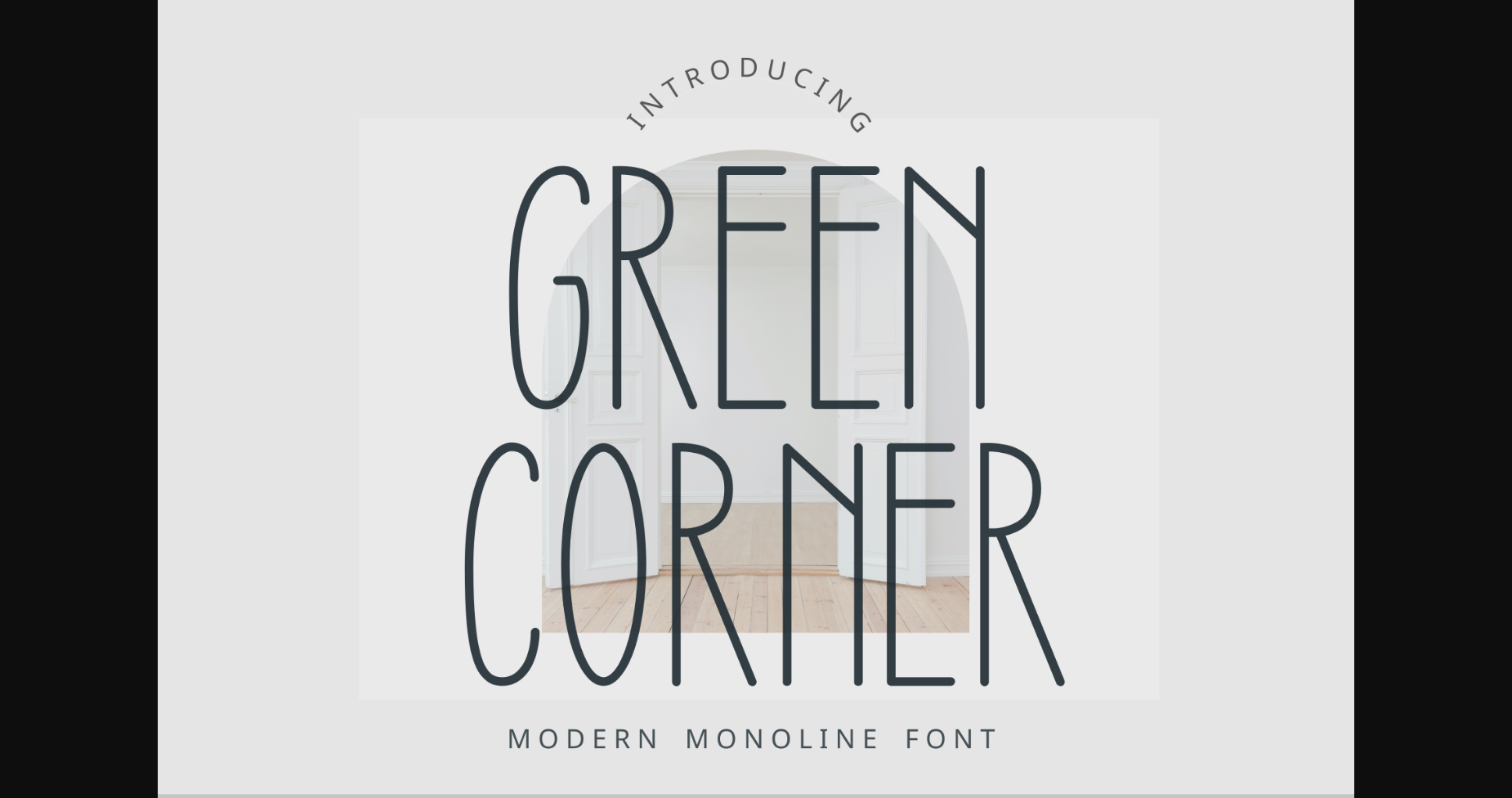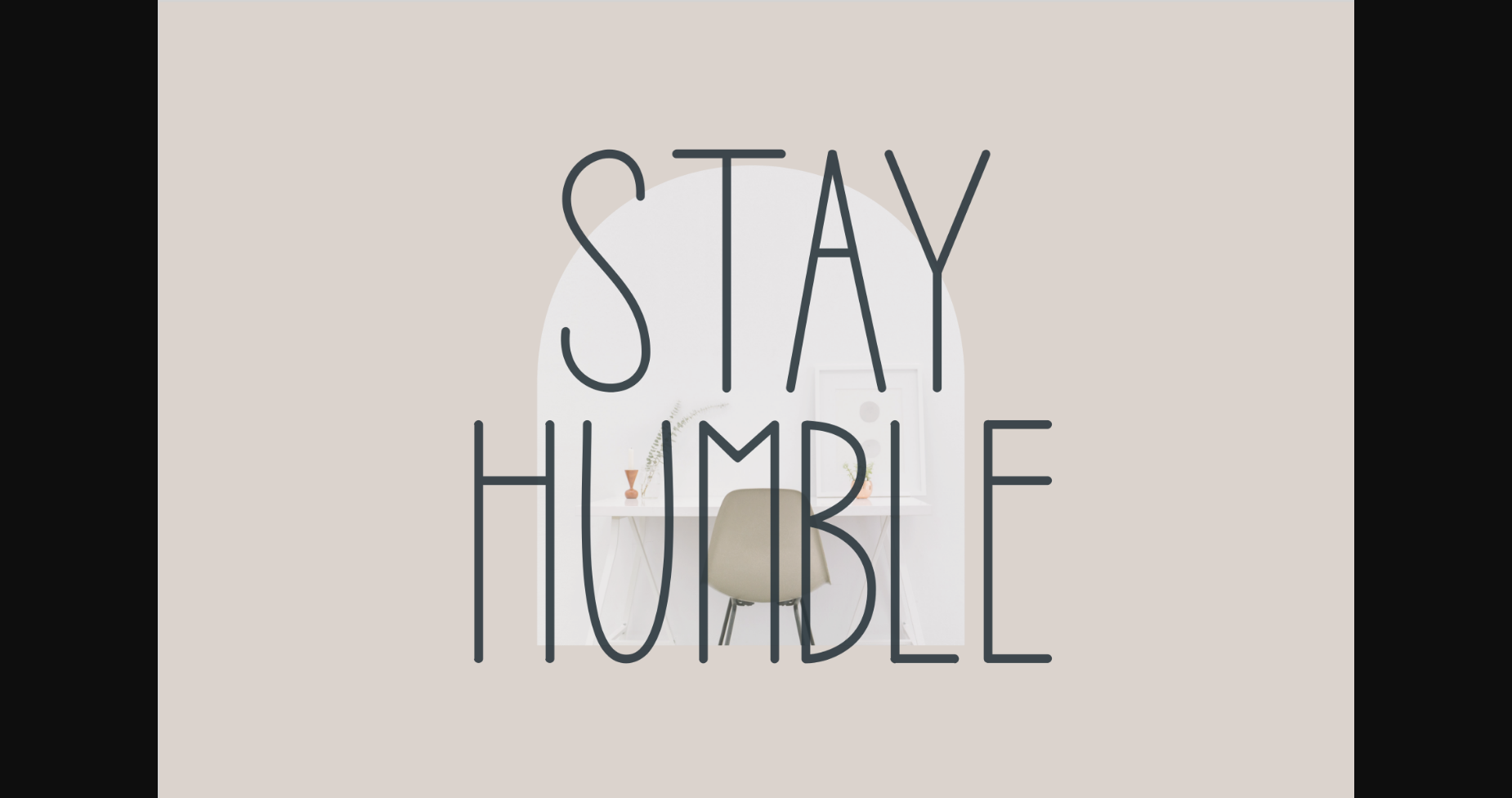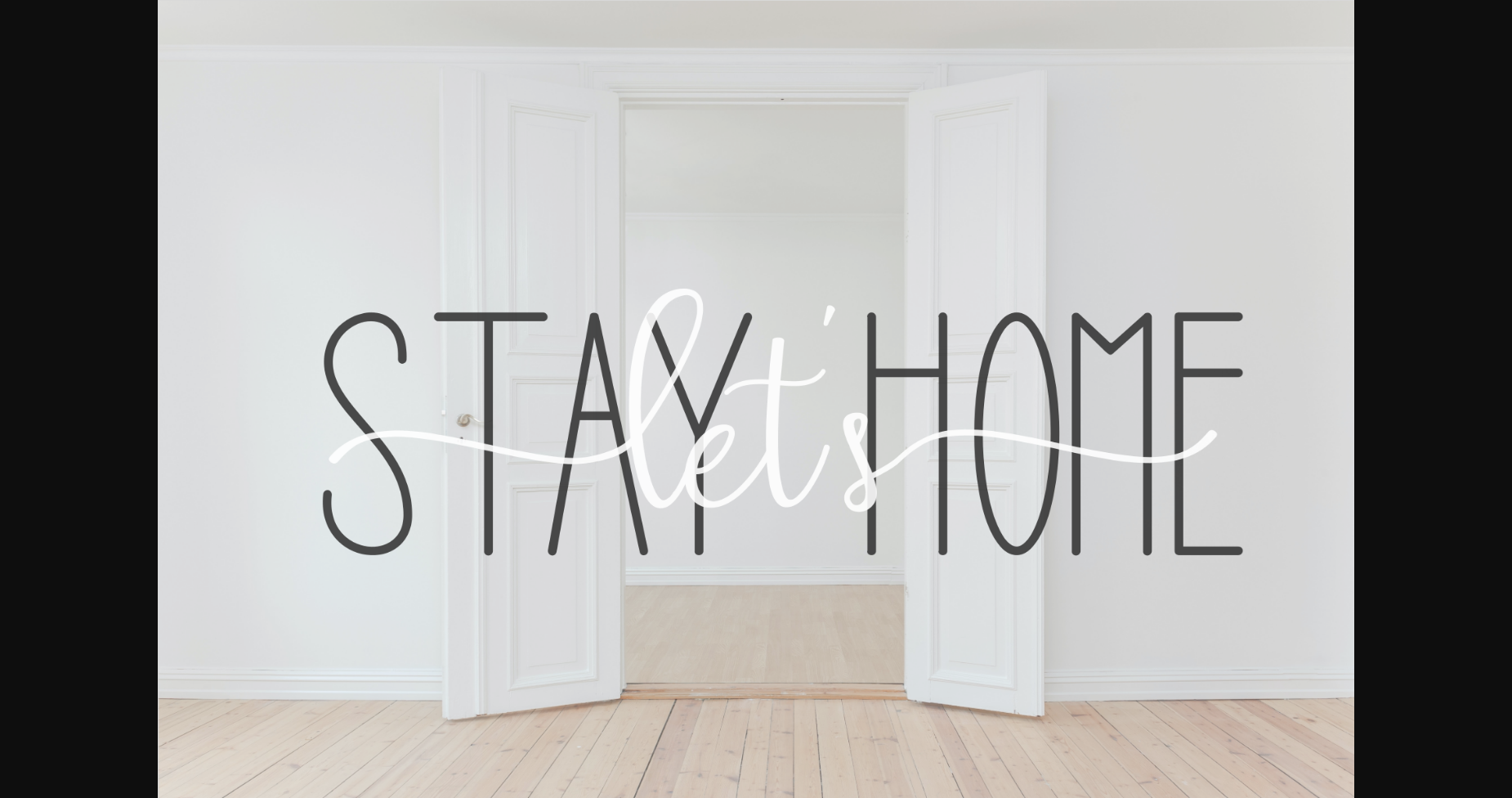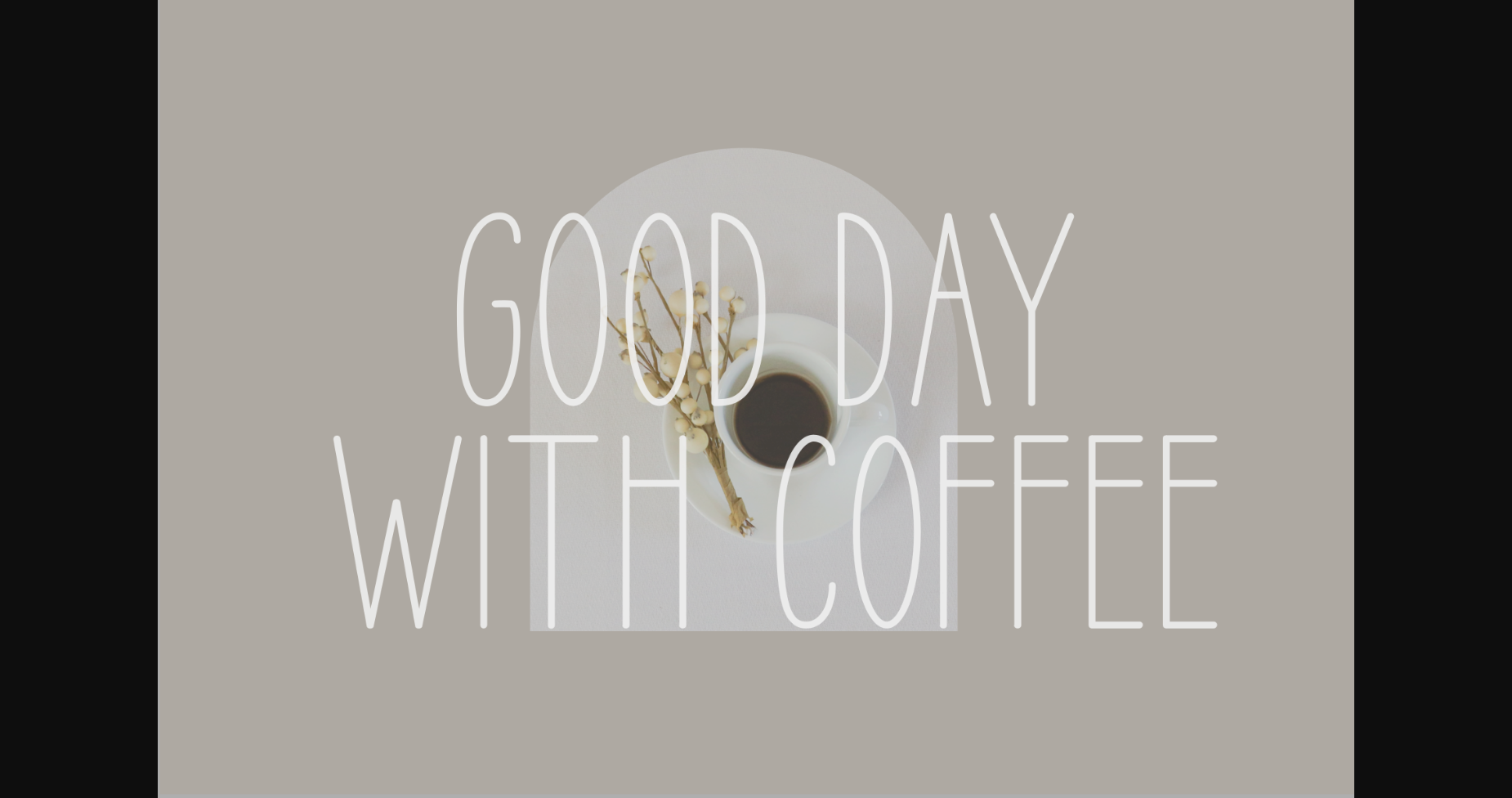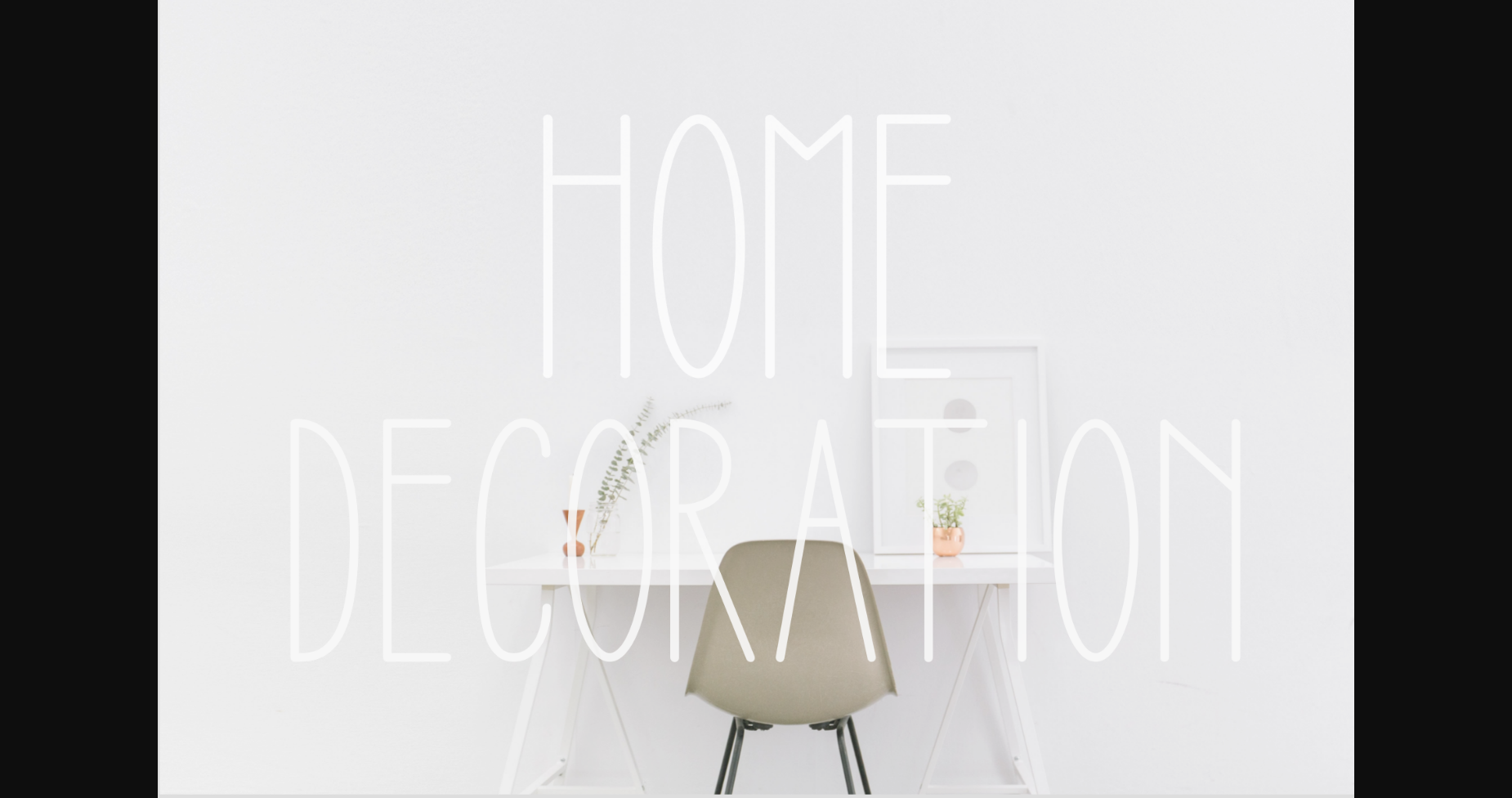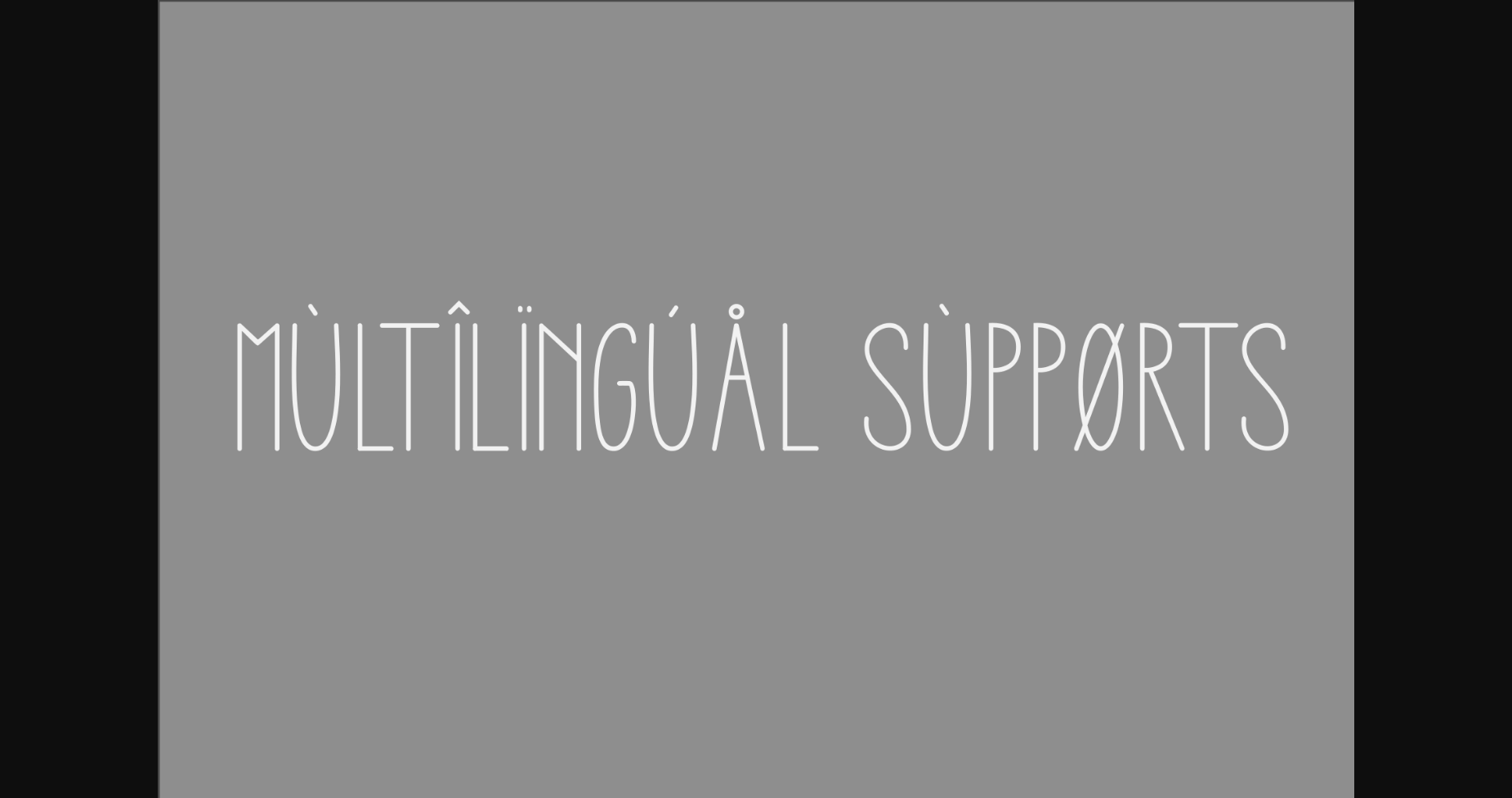
About Green Corner Font
Green Corner is a simple and thin lettered sans serif font. Whatever the topic, this font will be a wonderful asset to your font library, as it has the potential to enhance any creation.